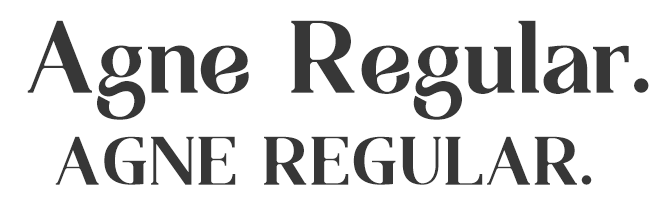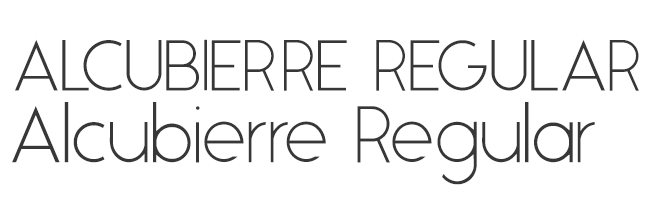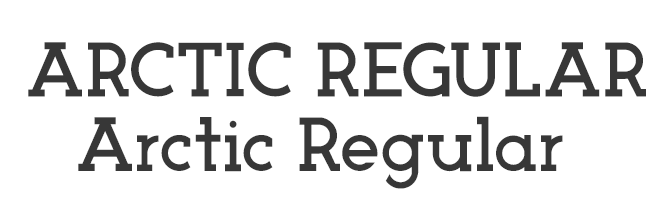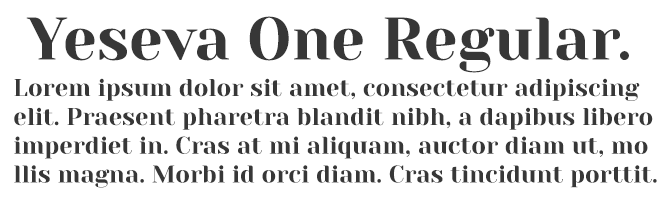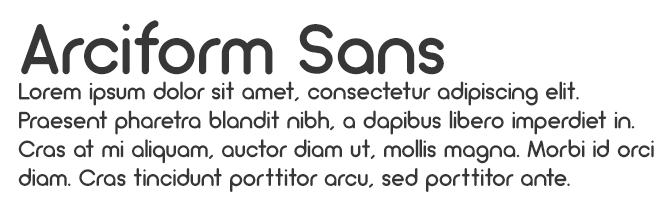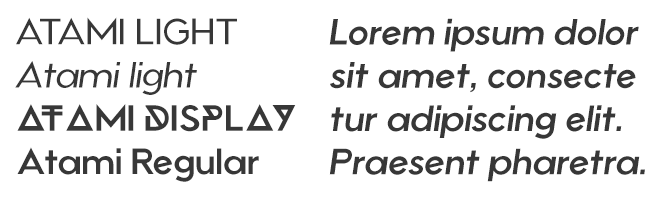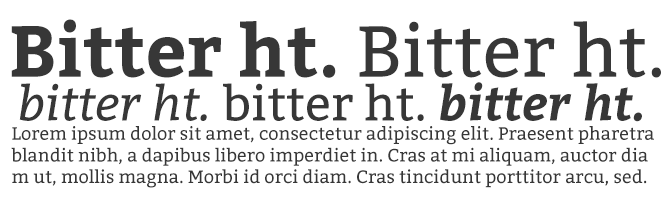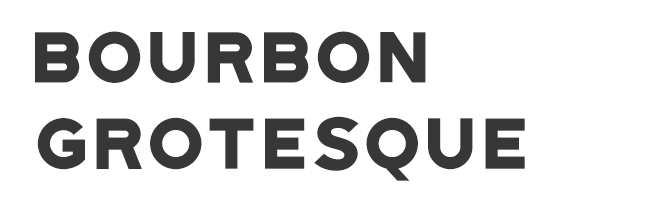
Finding stylish fonts for your design projects can be a major time sink -- especially when you have to wade through seemingly endless pages of typefaces that don't suit the vision you have in your head.
Finding a free font can be even more of a hassle.
So what's a budget-strapped designer to do?
We've scoured the depths of the internet so you don't have to, coming up with 33 of the best free fonts you deserve to have on your computer. Here's how we sorted them:
Many of the free fonts featured here were developed by designers, for designers, so they understand the need for versatile, polished, free typefaces firsthand. Check out the fonts below and keep them in mind for your next design project.
Best Free Fonts for Designers
- Hello Stockholm -- script font
- Wildera Regular -- script font
- Mightype -- script font
- Selima -- script font
- Oranienbaum Regular -- serif font
- Butler -- serif font
- Arctic -- serif font
- Canvas -- serif font
- Bitter ht -- serif font
- Agne Regular -- serif font
- Yeseva One Regular -- serif font
- Moon -- modern font
- Kolikö -- modern font
- Mohave -- modern font
- 20 db
- Alcubierre Regular -- modern font
- Bourbon Grotesque -- modern font
- Frontage Outline -- modern font
- Arciform Sans Regular -- modern font
- De La Fuente -- modern font
- Westfalia -- font for logos
- Atami -- font for logos
- Anders -- font for logos
- Westmeath -- font for logos
- Modeno -- font for logos
- Rezland -- font for logos
- Polya -- font for logos
- Horizon -- retro font
- Sweet Sensations -- retro font
- ITC Bauhaus -- retro font
- Bobbers -- retro font
- FF Blur -- retro font
- Canterbury -- retro font
Free Script Fonts
What happens when you combine Scandinavian minimalism with classic brushstrokes? You get Hello Stockholm, a casual script that plays well with sans-serif fonts.
We think this whimsical, light-weight script would look right at home in a fairy tale (or in your next project).
Subtle hand-drawn details set this script apart from the pack. Mightype is sophisticated without being stuffy.
Selima's breezy brushstrokes are perfect proof that script typefaces don't have to look old-fashioned or uptight -- they can be casual and modern.
Free Serif Fonts
From small print to bold headlines, multi-tasking Oranienbaum is up to the challenge.
A decidedly modern serif typeface, Butler comes in 14 different weights to suit a wide variety of different uses.
If you're looking for a slab serif font with a modern edge, give Arctic a try. It's a great way to give your headlines some character.
Canvas offers a modest but professional typeface that manipulates the thickness in the details of each letter. If you're looking for formality and creativity in the same font, this one takes the cake.
We love the versatility of Bitter ht, a contemporary serif typeface that looks stylish at any size or weight.
With bold lines and contrasting stems, this elegant font is a fresh take on old-fashioned serif typefaces.
If you're concerned that serif typefaces come across as too uptight or formal, consider Yeseva, a laid-back option for headlines and subtitles.
Free Modern Fonts
Have you exhausted your library of simple and free sans-serif typefaces? Add Moon to the mix. We love this font's clean simplicity and round edges.
This bold font evokes a sense of mystery to any creative work. Or, if you just want to geek out about something on your new tech blog, we can totally see this font playing a part.
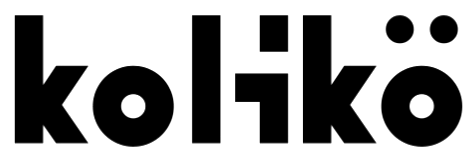
This all-caps font was designed with bold headlines and big type settings in mind.
The font below is simply timeless. Whether you're designing for an event advertisement or the headers of your blog, 20 db is confidence in written form.
Clean, minimal, and geometric, Alcubierre is well-suited to projects that require subtle headlines and a clear focus on the content.
Inspired by -- you guessed it -- classic bourbon labels, this sans-serif has a big personality that demands attention.
Frontage Outline is reminiscent of handcrafted facade signs, making it a suitable pick for logotypes.
Arciform might be simple, but this sleek sans-serif is far from boring. Consider including this easy-to-read typeface in your next web design project.
This cool typeface is decorative without being over-the-top, making it ideal for headlines, logotypes, and other design projects that focus primarily on the text.
Good Fonts for Logos
Give your next project an outdoorsy, authentic feel with this hand-painted brush sans, which makes for a playful logo as well.
Atami's numerous weights and display options make it the Swiss Army Knife of modern sans-serifs -- it can really do it all for a rising brand.
Anders just might be the avant-garde font of your dreams. It's unique geometric lines make it an excellent choice for logotypes.